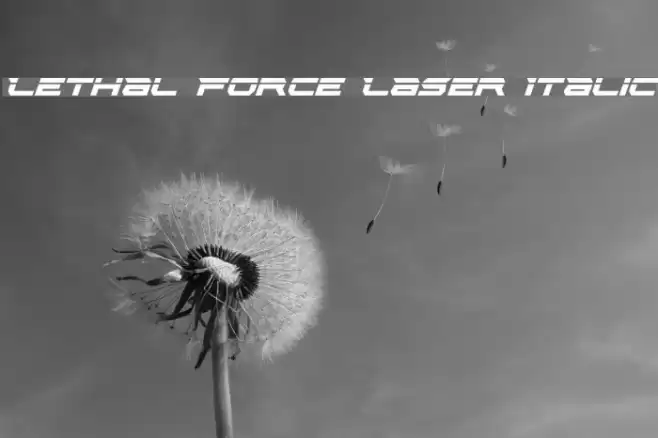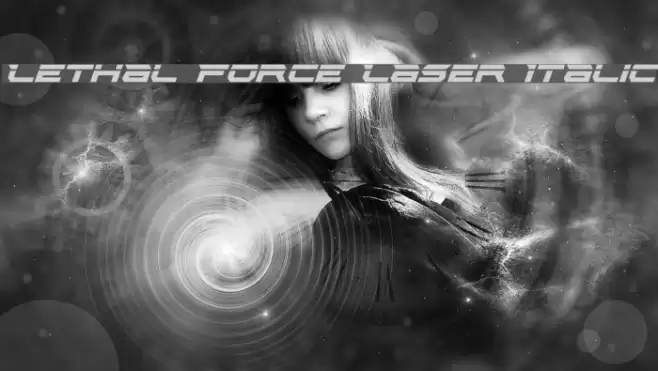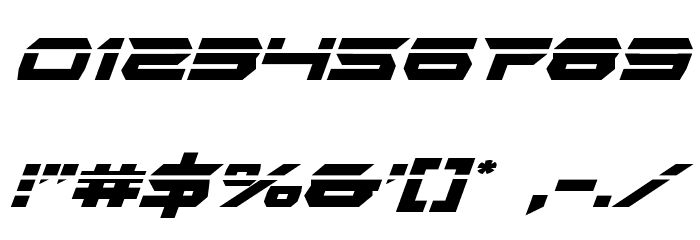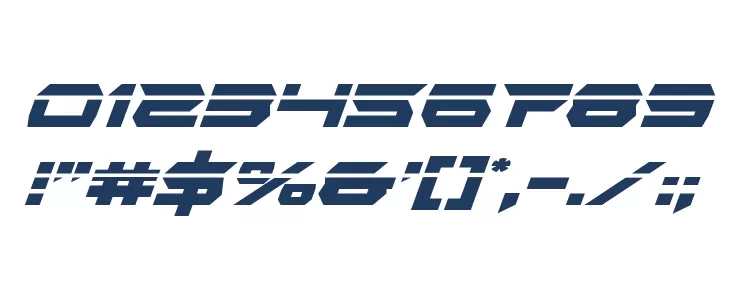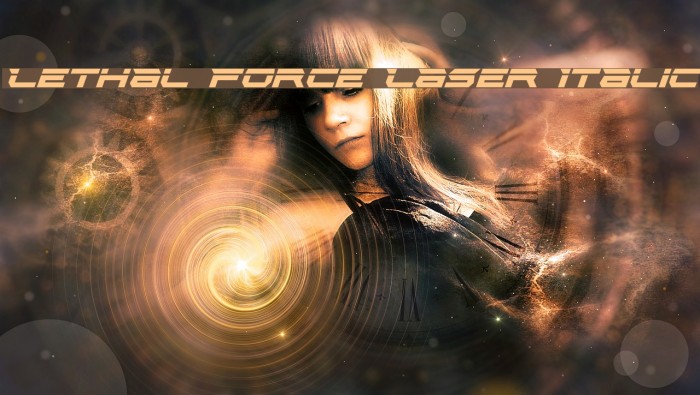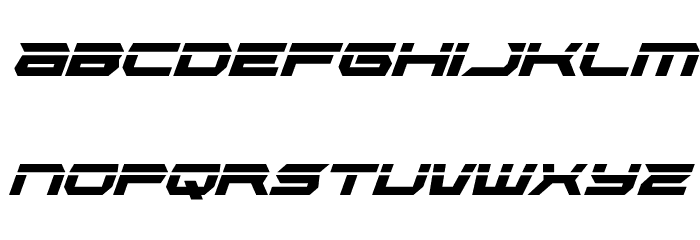
Lethal Force Laser Italic Font
Lethal Force Laser Italic Description
This font features a futuristic and angular design, characterized by sharp edges and a dynamic slant that gives it a sense of motion and speed. The uppercase and lowercase letters maintain a consistent geometric style, with each character exhibiting a bold and striking appearance. The numerals and special characters follow the same design principles, ensuring uniformity across all glyphs. The font's italic nature enhances its sleek and modern aesthetic, making it ideal for projects that require a cutting-edge and tech-inspired look.
A futuristic, angular italic font with a bold and dynamic style from Uncategorized fonts.
- Proposed Projects: Ideal for sci-fi themed designs, video game graphics, technology branding, and futuristic posters.